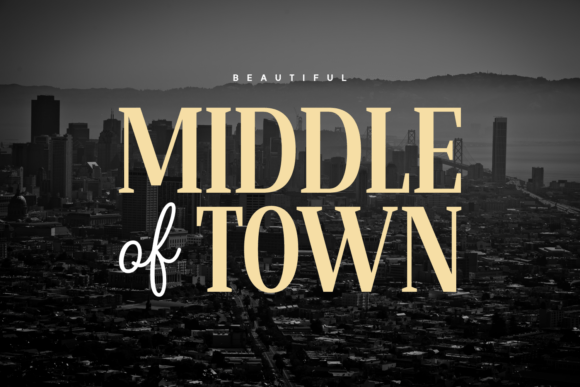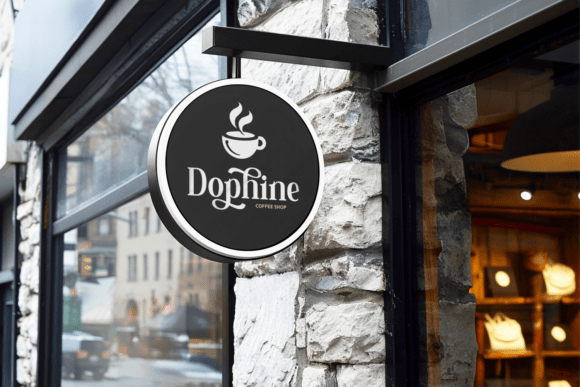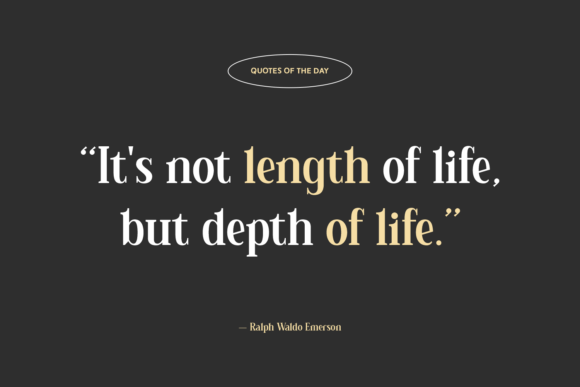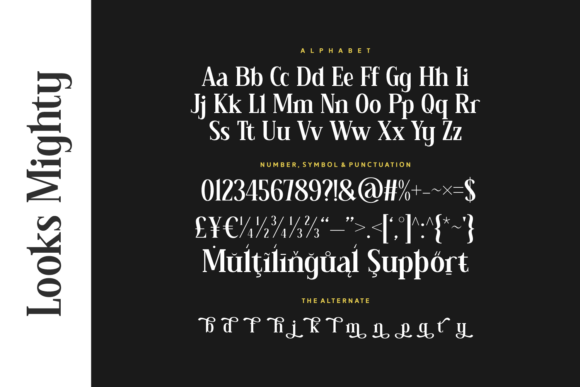
Introduction to Looks Mighty Font
Looks Mighty is a bold modern serif font that fuses strong structure with elegant swashes for a dramatic and stylish effect.
Its high-contrast strokes, unique ligatures, and refined details make it perfect for branding, editorials, posters, and luxury packaging Looks Mighty adds a commanding yet sophisticated presence to any design project.
Key Features of Looks Mighty Font